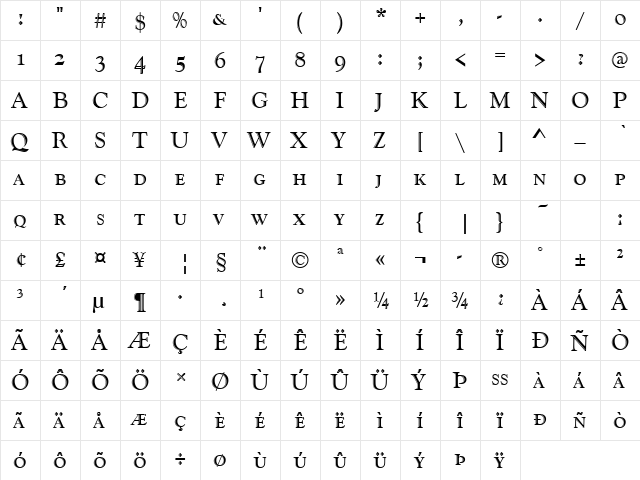
GoudyHanSCD Regular Font Preview
GoudyHanSCD Regular
GoudyHanSCD Regular Font Details
Design Context for GoudyHanSCD Typeface
GoudyHanSCD takes a measured approach to typography — its balanced proportions and neutral character make it a reliable workhorse for both digital and print work.